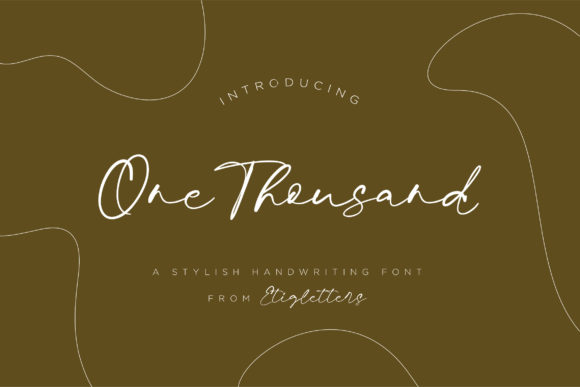
Unleash the Allure of One Thousand: A Script Font Symphony for Tattoos
In the realm of artistic expression, where creativity meets permanence, One Thousand script font emerges as a masterpiece, a symphony of flowing lines and delicate curves, designed to capture the essence of timeless beauty. This extraordinary typeface, meticulously crafted by the visionary etigletters, transcends the boundaries of ordinary fonts, inviting you to embark on an artistic odyssey, leaving an indelible mark on the world of tattoos.
With its enchanting allure and undeniable sophistication, One Thousand script font captivates the imagination, evoking a sense of wonder and enchantment. Its graceful strokes, reminiscent of a gentle breeze caressing a tranquil lake, instill a sense of serenity and poise. As your eyes dance across the intricate details of each letterform, you'll discover a world of endless possibilities, where artistic expression knows no limits.
One Thousand is more than just a font; it's an artistic conduit, a medium through which your creativity can flow freely. Whether you're an experienced tattoo artist or a budding enthusiast seeking to leave your unique imprint on the world, this font will serve as your faithful companion, guiding you towards masterpieces that will endure the test of time.
Effortlessly elegant and undeniably versatile, One Thousand seamlessly adapts to a myriad of tattoo styles, from the intricate and detailed to the bold and striking. Its inherent charm lends itself beautifully to names, quotes, and meaningful phrases, transforming them into timeless works of art that speak volumes about the wearer's personality and life story.
With One Thousand as your creative ally, you'll discover a new level of artistic freedom, where your imagination can soar without boundaries. Let your creativity take center stage as you explore the limitless possibilities that await you. Embrace the allure of One Thousand and witness the birth of tattoos that are not merely designs, but profound expressions of the human spirit.